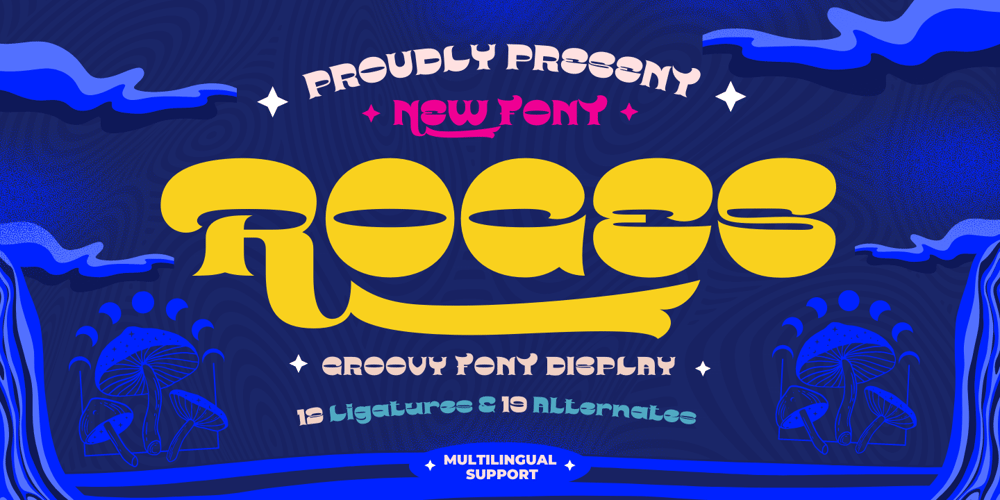
Roges
Roges font
Roges Font Family was designed by Rozikan and published by Twinletter. Roges contains 1 styles and family package options. Roges is a trippy hippie retro font that brings flowing handwriting to your text graphics. This font provides a great complement to your project, multiple character alternatives that add subtle wiggles and beautiful title matches create some surprises in the perfection of the look of your project, hurry up to create an amazing project with this font now.What’s Included : File font Standard glyphs Iso Latin 1 Simple installations We highly recommend using a program that supports OpenType features and Glyphs panels like many Adobe apps and Corel Draw, so you can see and access all Glyph variations. PUA Encoded Characters – Fully accessible without additional design software. Fonts include Multilingual support